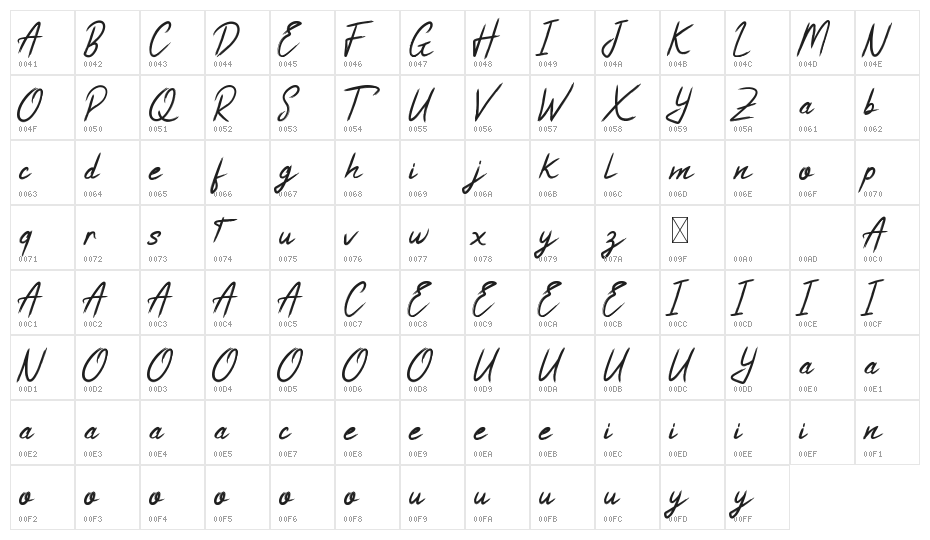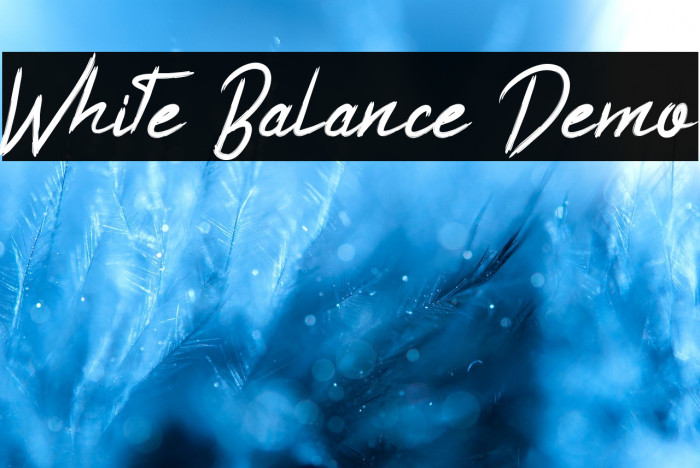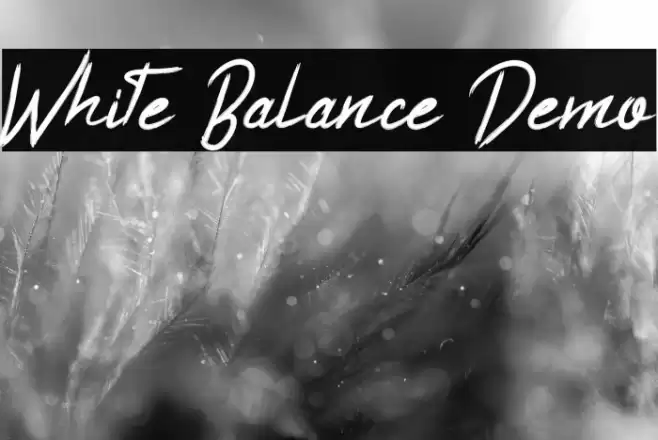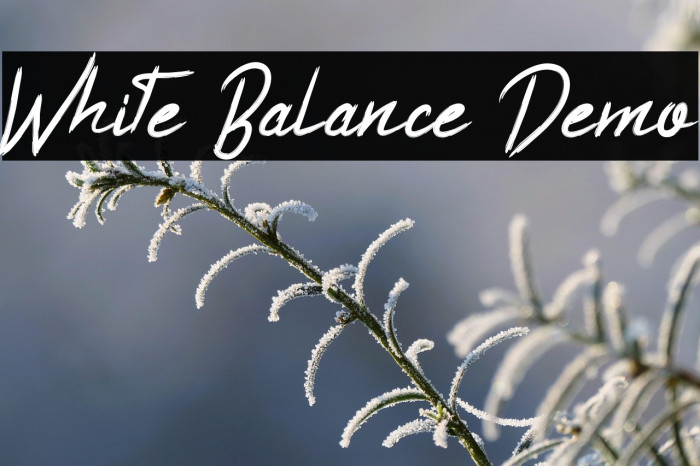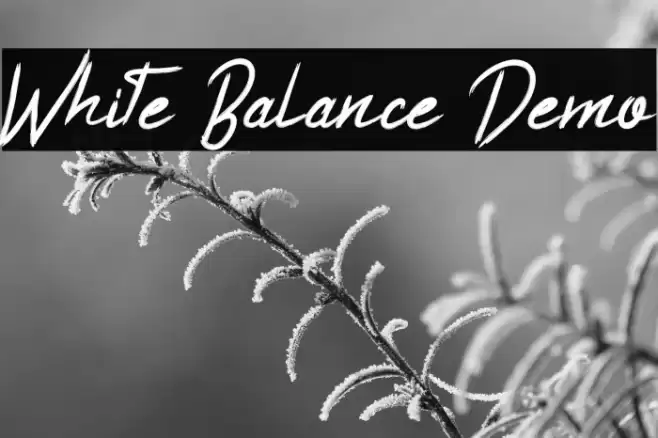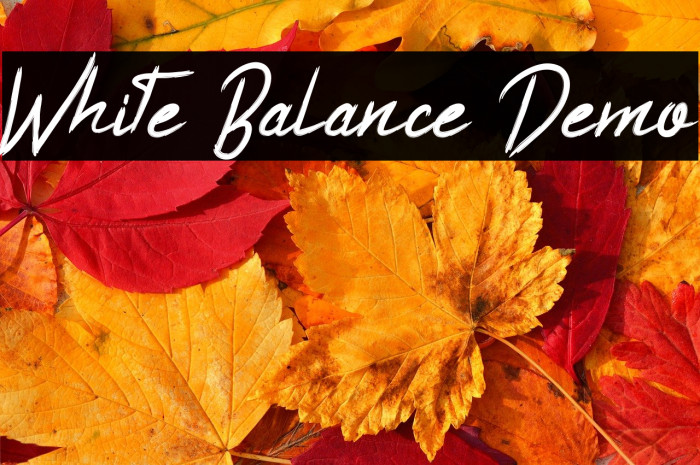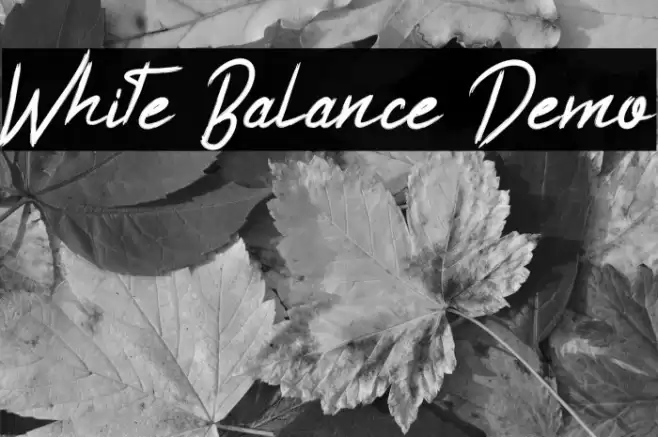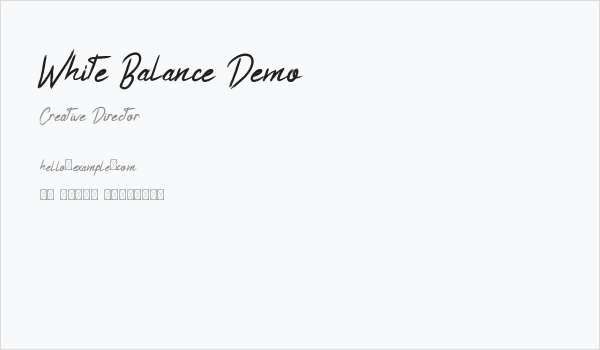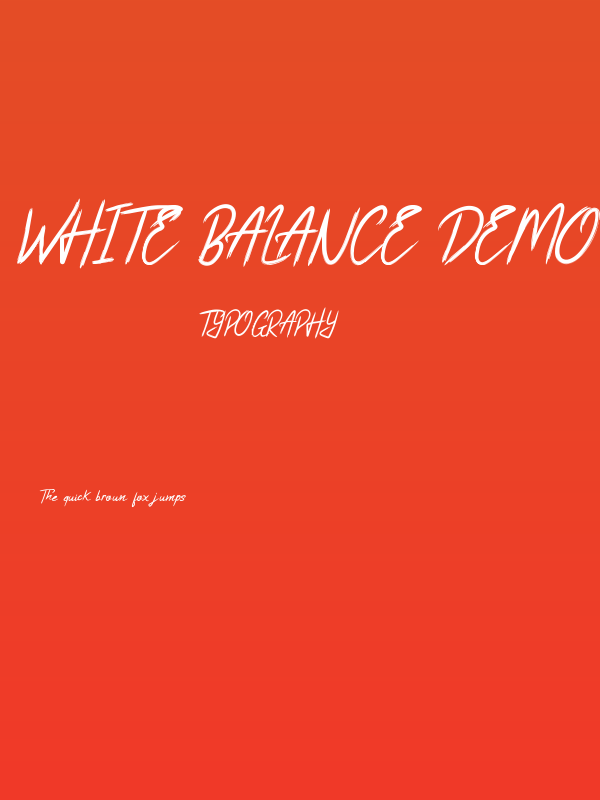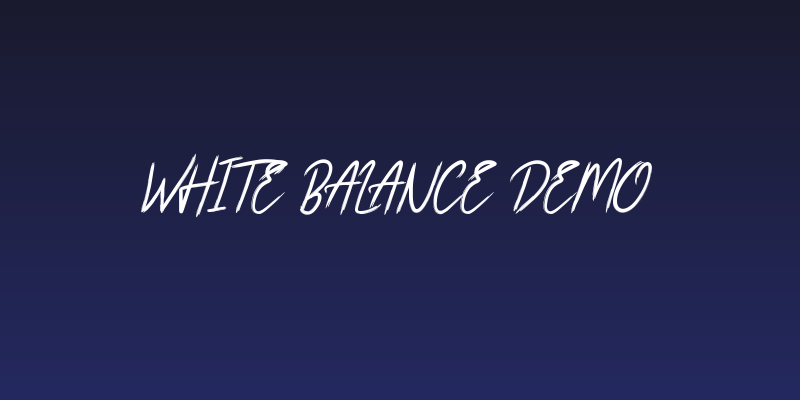
White Balance Demo Font
White Balance Demo Description
This font exudes a dynamic and energetic feel with its bold, sweeping strokes and fluid, cursive style. The characters are crafted with a sense of movement, giving an impression of speed and spontaneity. The uppercase letters are particularly striking, with elongated forms and sharp angles that create a sense of urgency and flair. The lowercase letters maintain this fluidity, offering a harmonious balance between elegance and expressiveness. The font's overall appearance is both modern and artistic, making it suitable for projects that require a touch of creativity and individuality. Its unique style is perfect for capturing attention and conveying a sense of boldness and creativity.